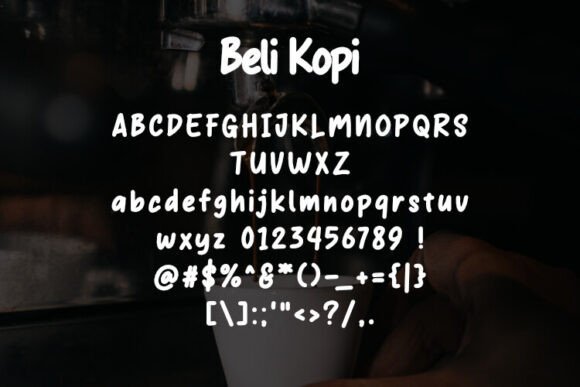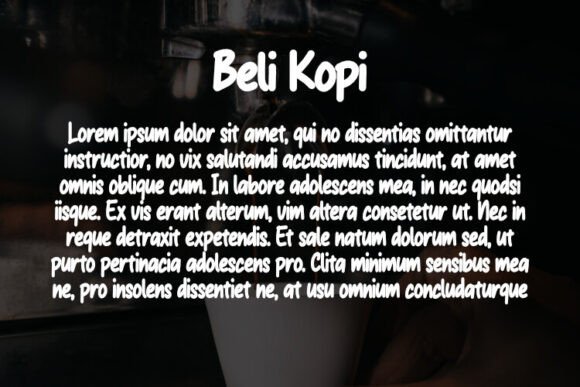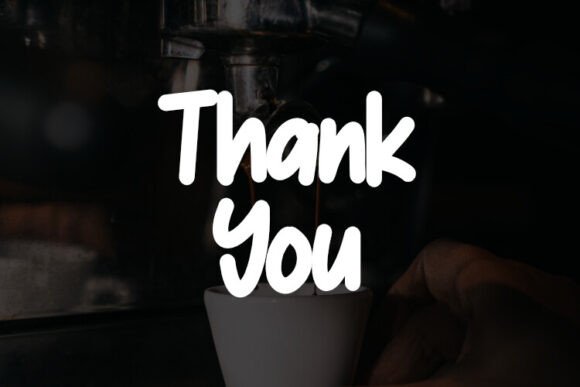
Beli Kopi Font
Presenting “Beli Kopi”, a captivating font ideal for infusing a unique touch to your apparel, t-shirts, and diverse product designs. This versatile typeface, accessible in otf file format, is compatible with all design software, allowing a seamless designing experience irrespective of your choice of platform. The distinct lettering style of “Beli Kopi” ensures it effortlessly complements any design, embodying an exquisite blend of aesthetics and readability.